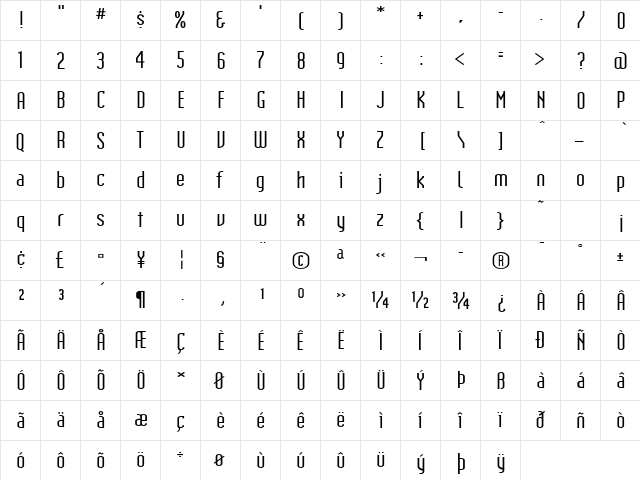
IndustrialExtended Regular
Design Context for IndustrialExtended Typeface
IndustrialExtended is a composed and adaptable typeface that performs quietly and consistently across a wide range of design contexts.